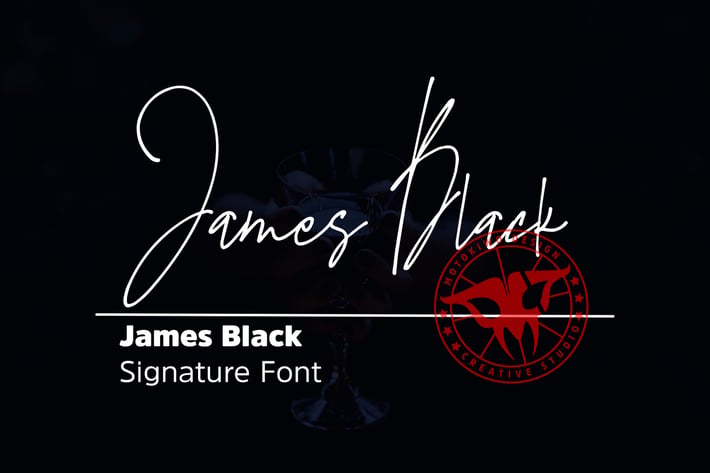
James Black Signature Font
James Black, a signature milli pen font with classy handwriting style.
This is a perfect font for business, for your personal feels, for everything about you smart people! You will get a casual handwritten font with some ligatures that will give you more taste of high class personality.
Numbers and Symbols
Ligatures: aa al ol el ul rr tt at st ee dd ss oo mm cc pp nn ff gg sh cl er ir ar hh ii uu zz tl ttl stl att
Special Characters and Standard Multilingual Characters